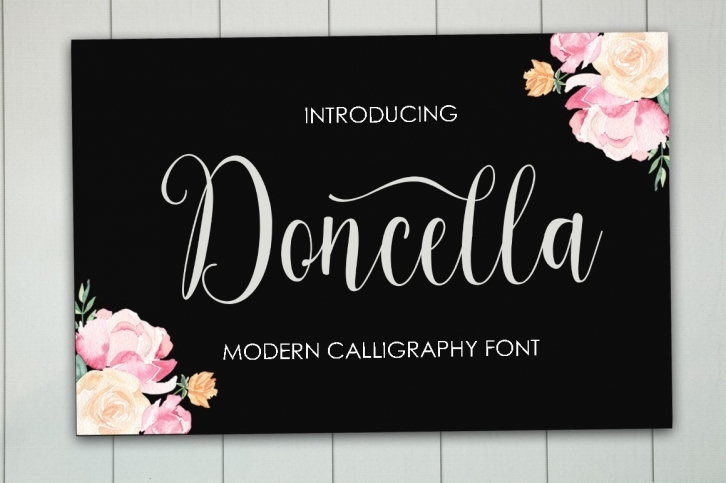
Doncella is a beautiful font that was designed by Ayeela studio. It's a great choice for designers and creatives who need such a font. It was released on June 10, 2018 and the file size is 19.91 MB. Doncella may give a more youthful, expressive and casual look to your project. It is a very beautiful, refined, elegant, and high-quality font.